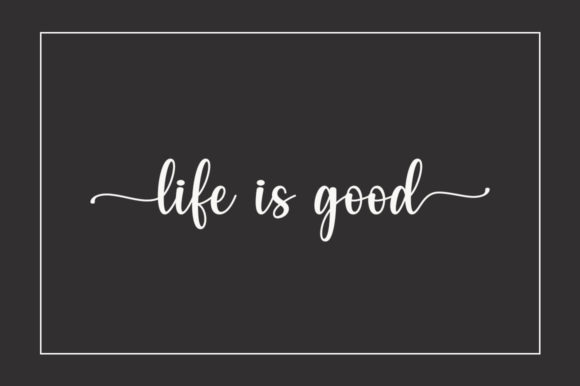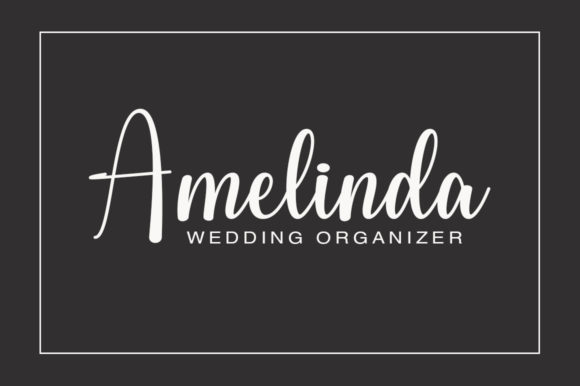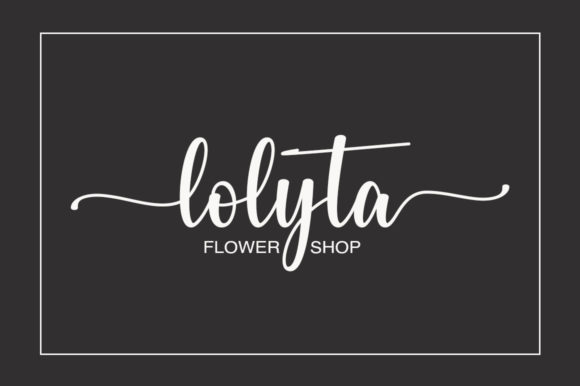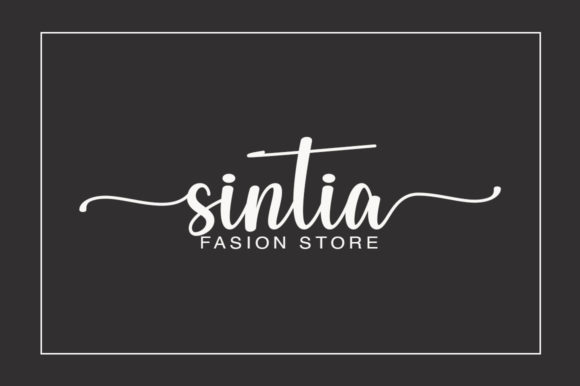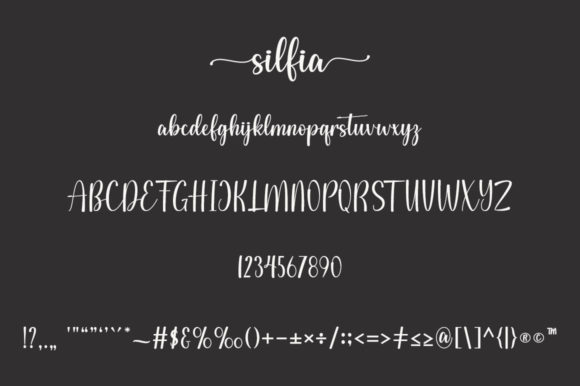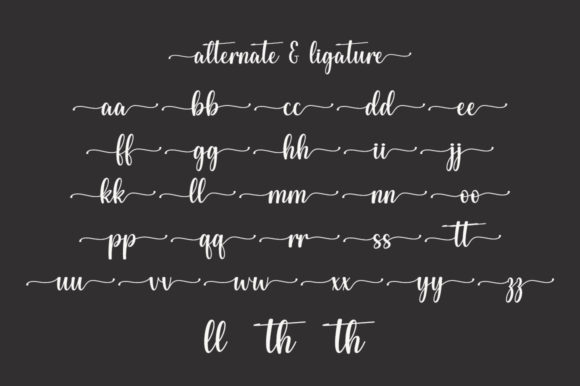
Introduction to Silfia Font
Have you ever been in the midst of a creative project, pouring your heart and soul into a design, only to feel like something is missing? The perfect font can make all the difference. For designers looking to add a touch of whimsy and personality to their work, we’re excited to introduce the Silfia Font.
This charming script font is designed to add a playful touch to any creative project. With its beautiful, flowing characters, Silfia Font is perfect for designers who want to create eye-catching and memorable designs. Whether you’re working on a branding project, a wedding invitation, or a children’s book, Silfia Font is sure to bring a smile to your face.
Key Features of Silfia Font
- High-quality design for creative projects, ideal for digital artwork and designs with a transparent background.
- Designed with precision, resulting in a clear and legible font at resolutions up to 300 DPI.
- Perfect for use in digital designs, logos, and typography, thanks to its modern and sleek aesthetic.
- Supports a wide range of languages, making it a versatile design element for global creative projects.
- Available in various font sizes, including bold and light weights, to cater to diverse design needs.
Honest Review: Silfia Font
I recently had the chance to experiment with the Silfia Font for a creative project, and I must say it’s been a game-changer. This font is perfect for designers looking for a high-quality, unique design resource that adds a touch of elegance to their work.
Here are some of the things that work well: ✨
- Beautiful, cursive script that’s perfect for titles and headings
- High-quality design that looks great on both light and dark backgrounds
- Transparent background option makes it easy to customize and combine with other design elements
However, I did encounter a few limitations: ⚠️
- Not suitable for body text, as it can be difficult to read in large quantities
Overall, I’m thoroughly impressed with the Silfia Font. Its unique design and high-quality feel make it a valuable addition to any designer’s toolkit. I’d highly recommend it for creative projects where a touch of sophistication is needed.
Tips for Getting the Most Out of Silfia Font
Here are some tips for getting the most out of Silfia Font: Use it in combination with other design elements, such as images and shapes, to create a visually appealing design. Experiment with different font sizes and styles to create a unique look. Use the font with a transparent background to create a high-quality design element that stands out.
Silfia Font is commonly used in a variety of creative projects, including social media graphics, presentations, and more. It’s also a great resource for designers who need a high-quality font with a transparent background.
Can I use the Silfia Font with a transparent background in my design?
Yes, the Silfia Font supports transparent backgrounds, allowing you to create stunning designs with a high level of customization. This feature is particularly useful for graphic designers and UI/UX designers working on creative projects.
What is the recommended font size for optimal readability with the Silfia Font?
For optimal readability, we recommend using font sizes between 12-24 points. However, feel free to experiment with different font sizes to achieve the desired look for your creative project.